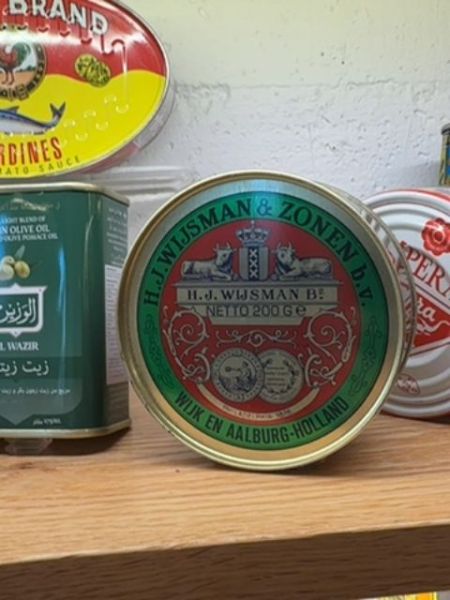
H.J. Wijsman & Zonen B.V. Butter
Premium quality butter traditionally made for culinary uses including baking and cooking.
Netherlands
The typography features a classic serif typeface, providing a sense of tradition and reliability. The use of capital letters throughout emphasizes clarity and prominence, while the curved text follows the circular shape of the tin, creating a cohesive design.
The packaging is a round tin with a bold red and green color scheme, featuring intricate scrollwork and a prominent central emblem. A crest with two lions and a crown highlights its heritage, while gold accents provide an impression of luxury.
- Known for its high-quality dairy products.
- Exported globally for its rich flavor.
- A staple in Dutch households for generations.